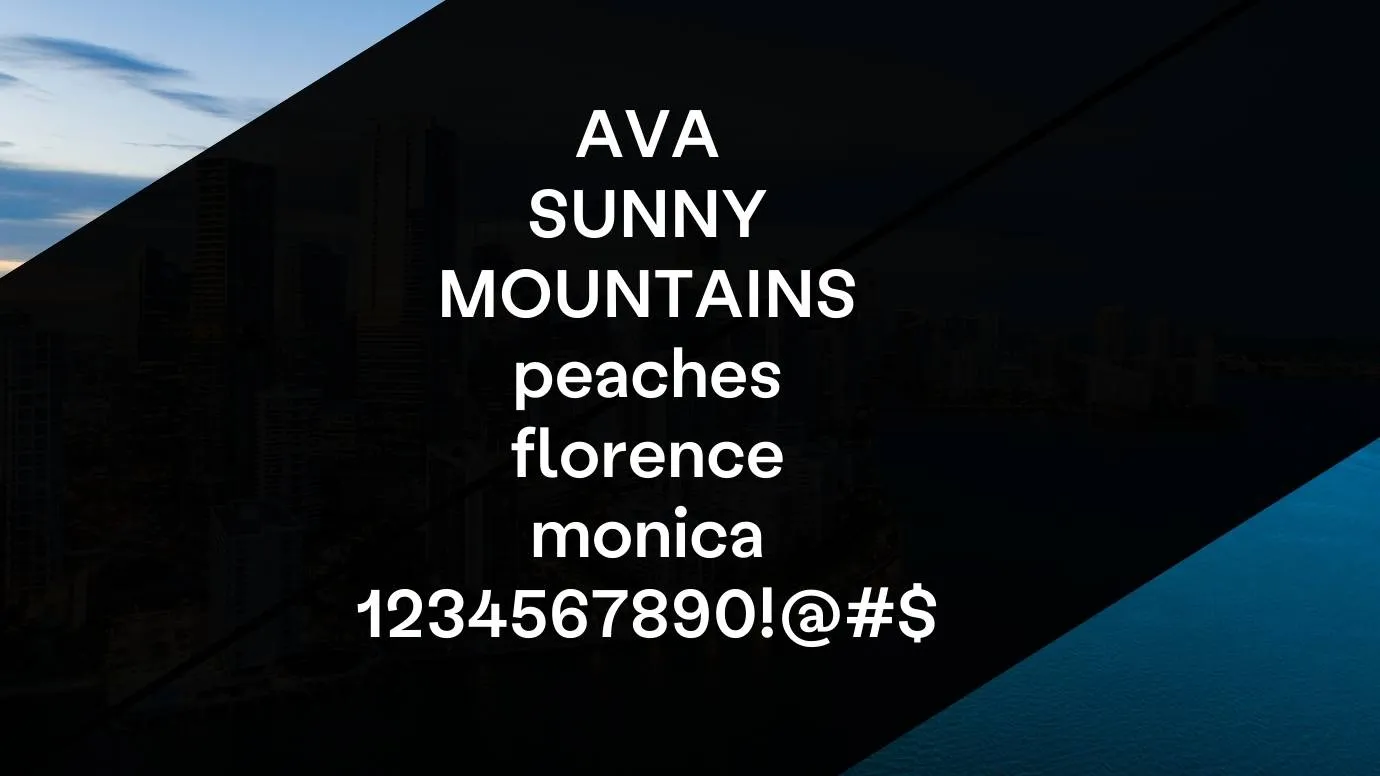
The Labil Grotesk Font is a famous typeface all around the world. The design is influenced by both classic and contemporary sans serifs. The letterforms are slightly condensed which gives the typeface a more refined appearance.
It is a humanist sans serif typeface with 6 weights (Light, Regular, Medium, Bold, Black) and 2 widths (Normal, Condensed). The family includes 28 fonts in all with support for over 200 languages.
Labil Grotesk is very versatile and can be used for a wide variety of applications. It works well for both body text and headlines. You can easily compare it with droid serif font. The light weights are great for use in smaller sizes while the bolder weights are perfect for headlines and other display purposes.
Labil Grotesk has a long and storied history. It was originally designed in the early 1900s for use in advertising and public signage. This typeface can be used with united serif font. The typeface fell out of favor in the 1950s but was revived in the 1980s by Swedish designer Mårten Larsson.
Larsson’s revision of the typeface was incredibly successful and it has been used extensively in both print and digital media ever since. It is one of the most popular sans-serif typefaces in use today.
If you’re looking for a versatile, sophisticated sans-serif typeface, Label Grotesk is a great choice. It has a timeless appeal that will work well for any project.
Creator of Labil Grotesk Font
This Font was designed by Mårten Larsson and published by Kokokaka.
This single, appealing style incorporates several elements, such as capital and lowercase letters, numbers, punctuation, characters, special symbols, glyphs, and language support.
What type of Font is Labil Grotesk Font?
This typeface is a member of the sans serif family. It has a very elegant and eye-catching texture look appearance for the viewers.
Who is the designer of Labil Grotesk Font?
The new Labil Grotesk Texture has been designed by a famous graphic designer named Mårten Larsson.
What font is closest to Labil Grotesk Font?
The closest font of this wonderful typeface is pier sans font. You can easily combine it with multiple other typeface styles.